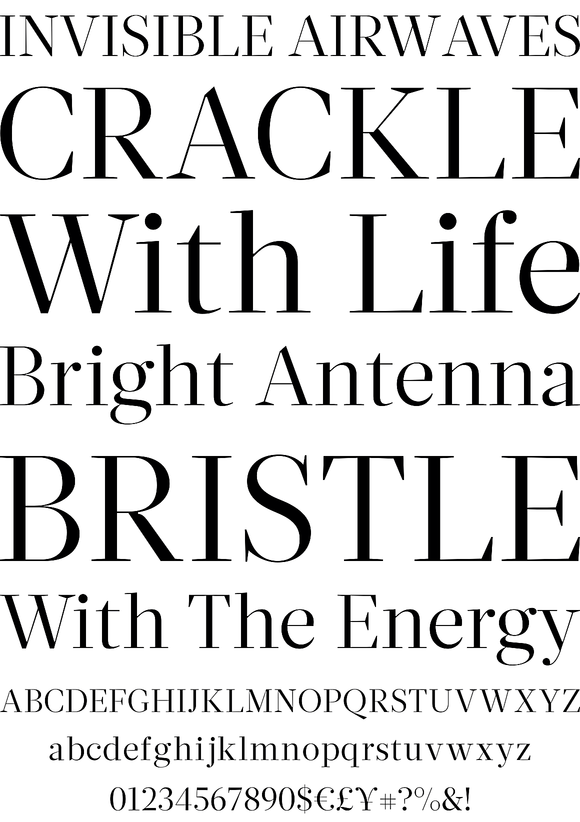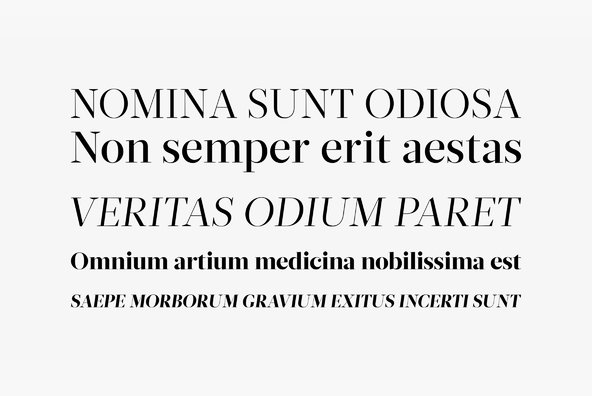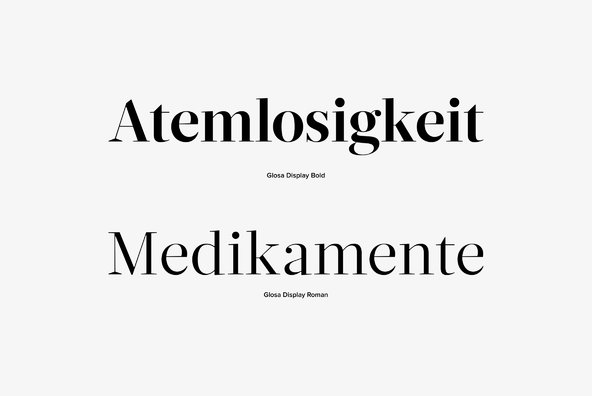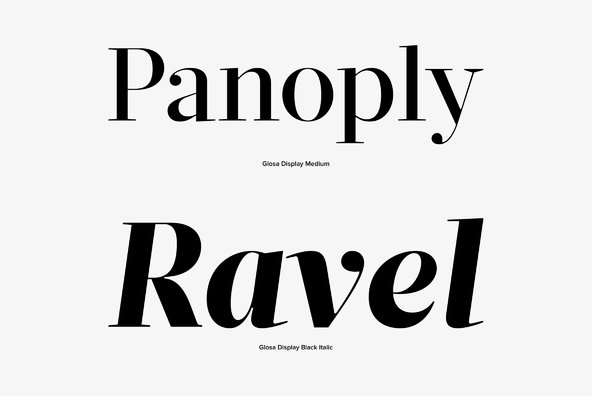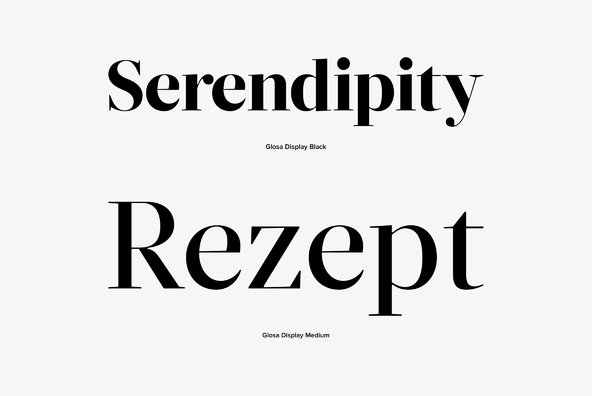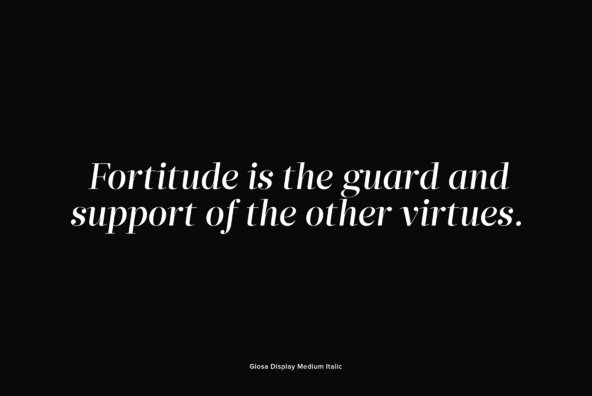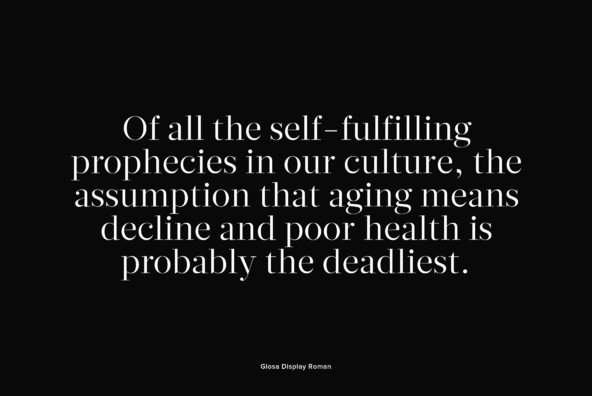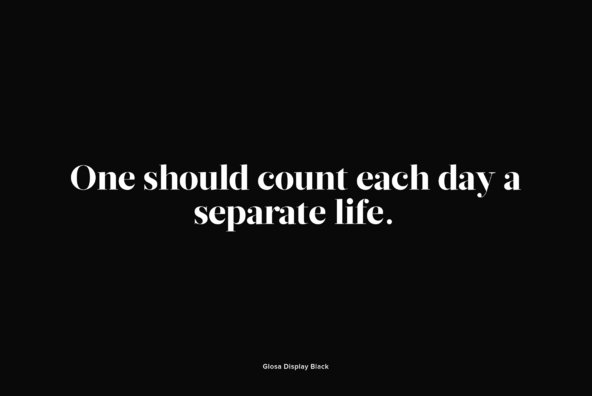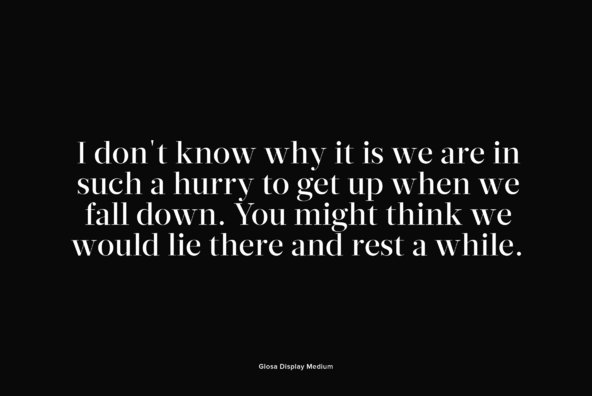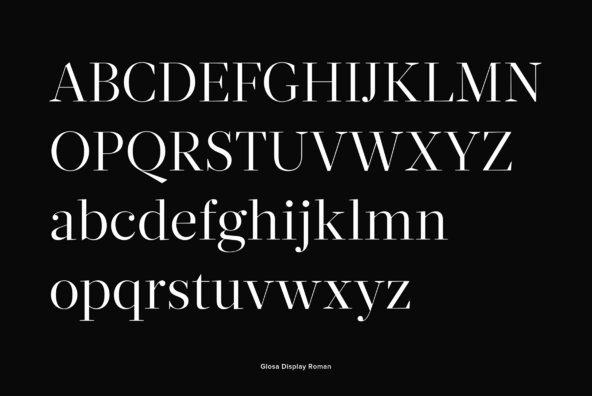
Glosa Display
Foundry: DSType
Glosa Display is a high contrast typeface with plenty of style, suited for very large display sizes in magazines and newspapers.Glosa Display is the latest member of the Glosa family. Glosa is a type family designed for editorial purposes.